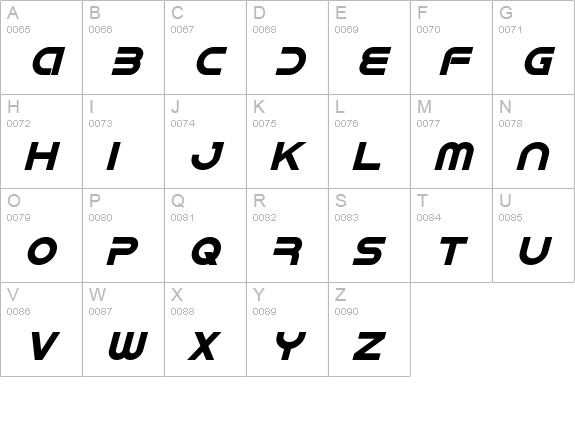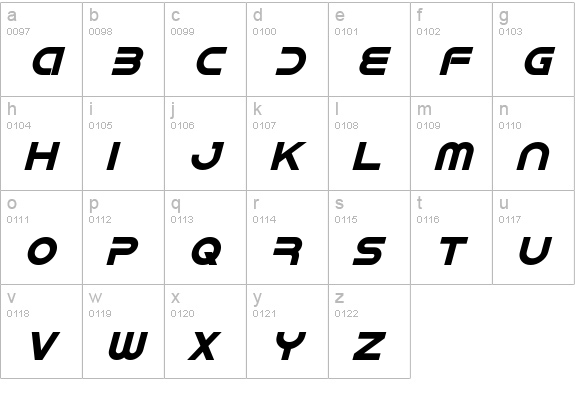
IDroid Bold Italic Font Details
IDroid Bold Italic is a strong, high-contrast, italic variant in the IDroid typeface family \xE2\x80\x94 well suited to headlines, attention-grabbing titles, and strong calls-to-action.
Introducing the IDroid Bold Italic font, a stunning and versatile typeface that is sure to make a bold statement in any design. With its sleek and modern design, this font is perfect for adding a touch of sophistication and elegance to your projects. The IDroid Bold Italic font features a unique combination of boldness and italics, creating a captivating visual effect that will instantly draw attention. Its clean lines and distinct letterforms make it highly readable, ensuring that your message is conveyed with clarity and impact. But what makes the IDroid Bold Italic font truly remarkable is that it is available for free! That's right, you can now download this amazing font without any cost or limitations. Thanks to FontsMarket.com, you can easily access and enjoy the IDroid Bold Italic font at your convenience. Whether you're a graphic designer, a web developer, or simply a typography enthusiast, the IDroid Bold Italic font is a must-have in your collection. Its versatility allows it to be used in a wide range of projects, from logos and branding materials to website designs and social media graphics. So why wait? Embrace the power and elegance of the IDroid Bold Italic font today. Visit FontsMarket.com and download this incredible font for free. Elevate your designs to new heights and captivate your audience with the timeless beauty of the IDroid Bold Italic font.